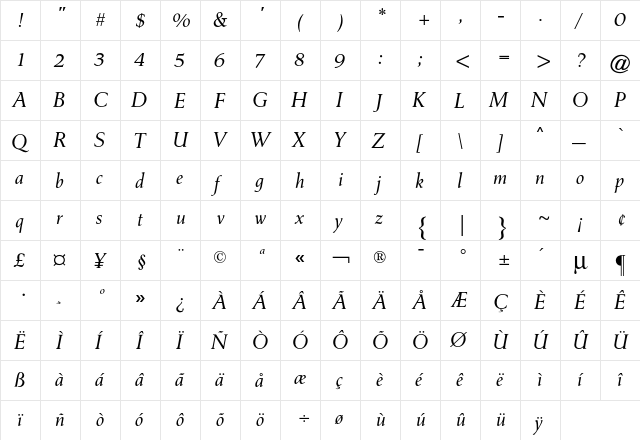
Holland Seminar CG Italic
Design Context for Holland Seminar CG Typeface
Holland Seminar CG is a composed and adaptable typeface that performs quietly and consistently across a wide range of design contexts. Its italic angle brings a sense of urgency and motion to the letterforms.
Pro Tip: Try Holland Seminar CG for annotation and caption copy alongside an upright companion — the contrast in angle creates a dynamic but ordered typographic system.